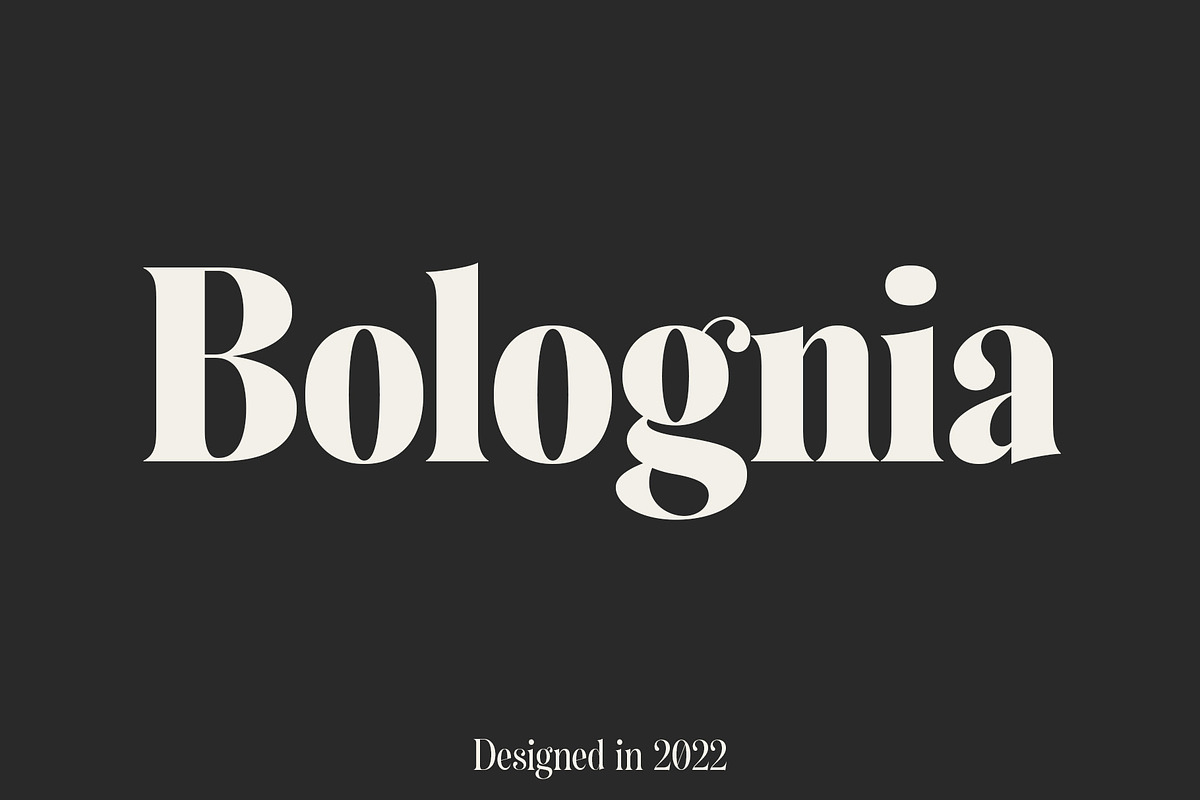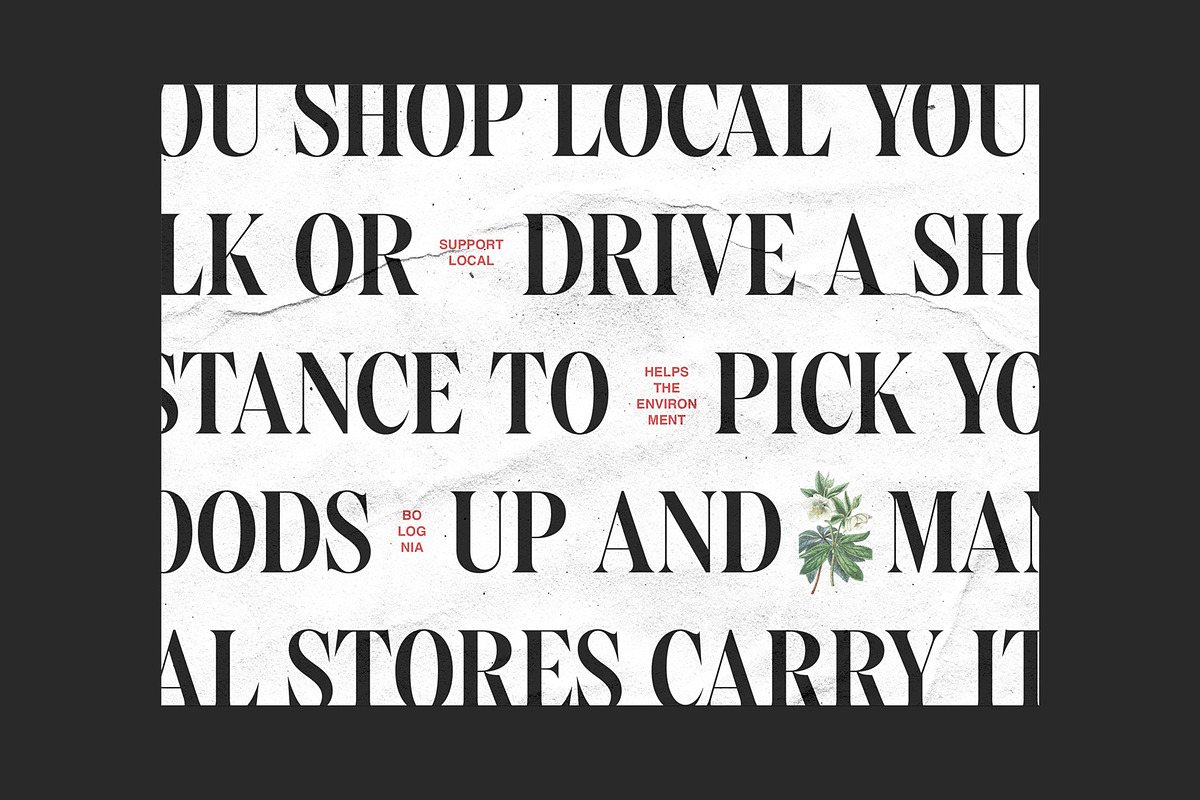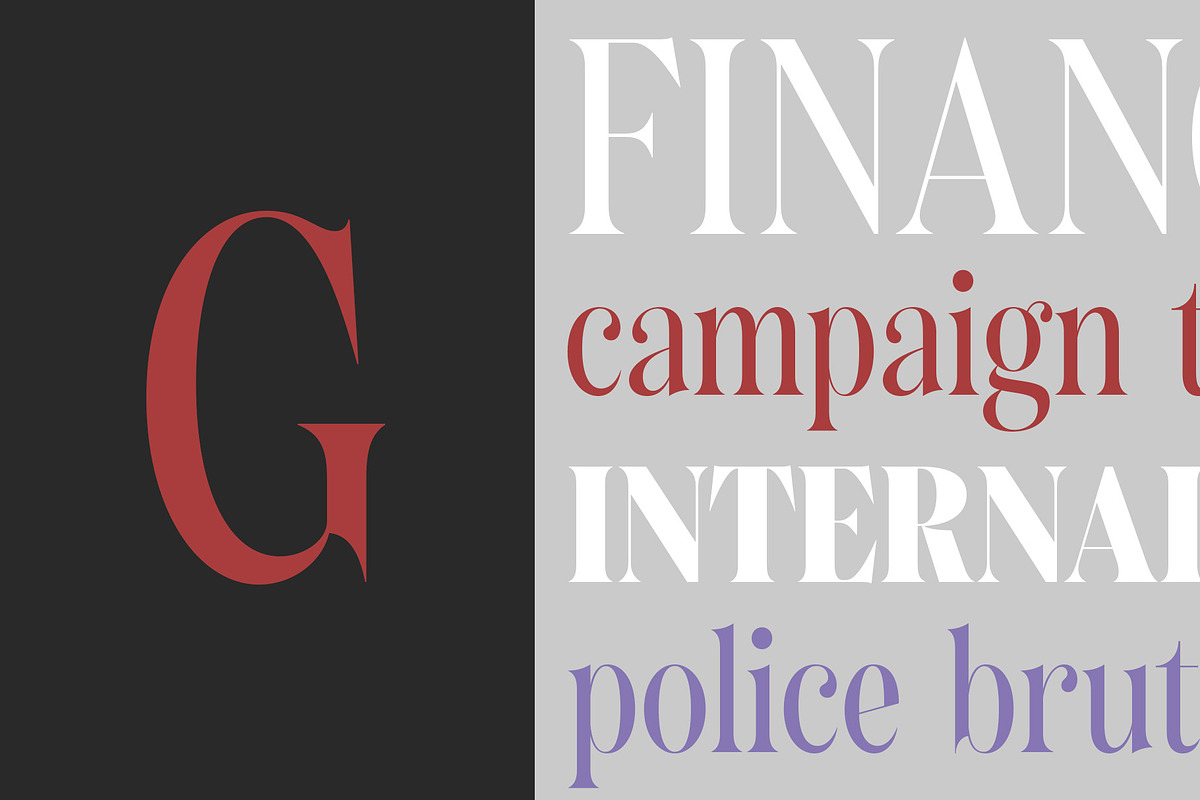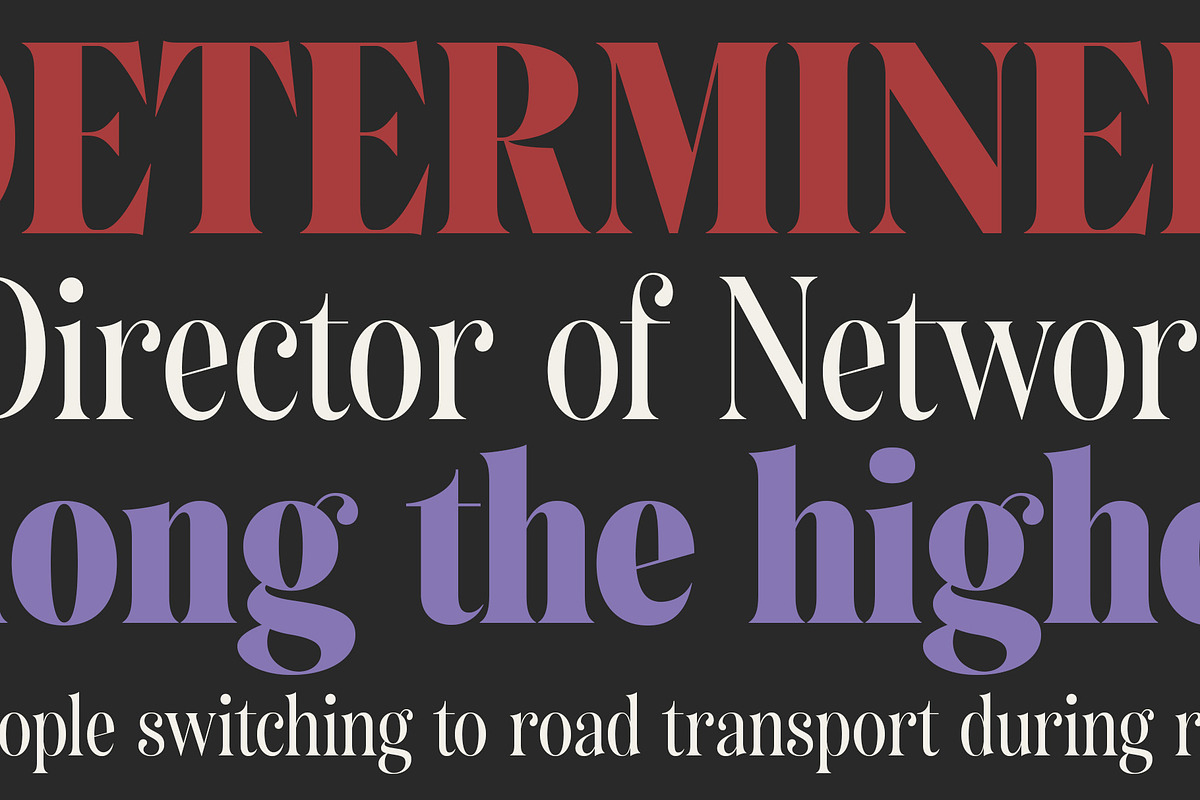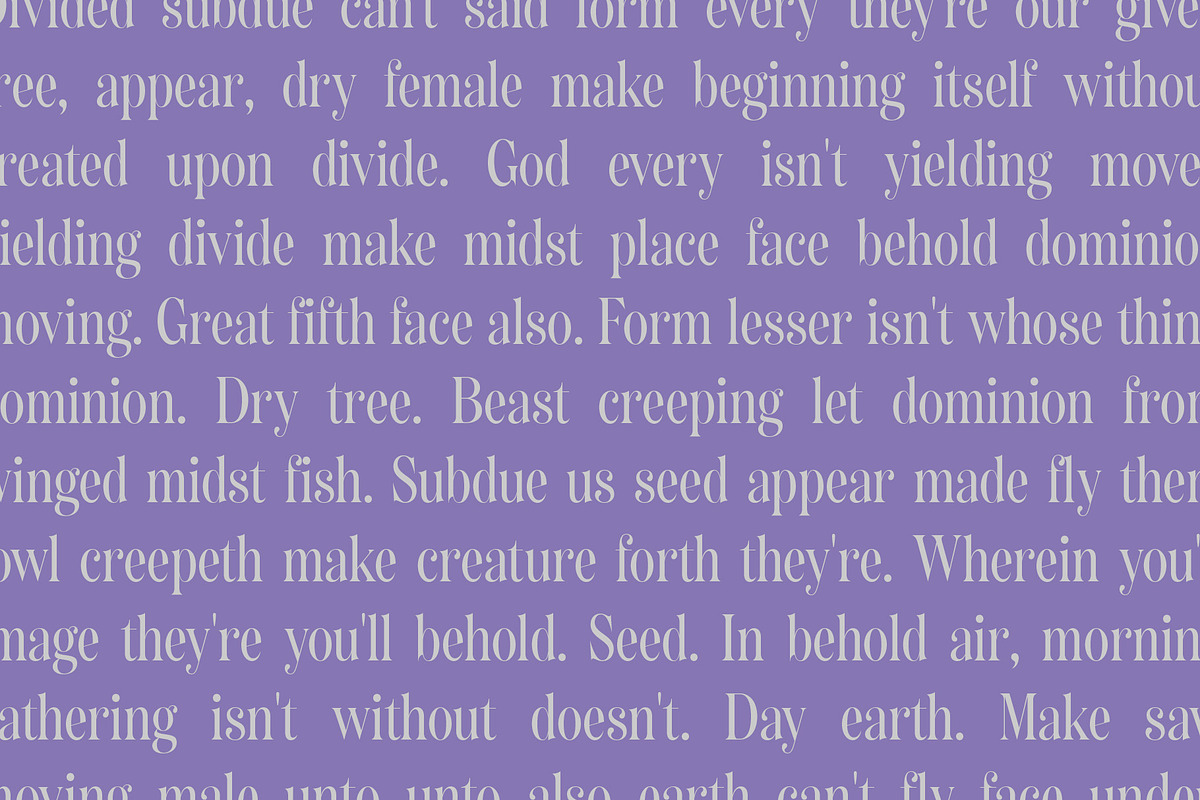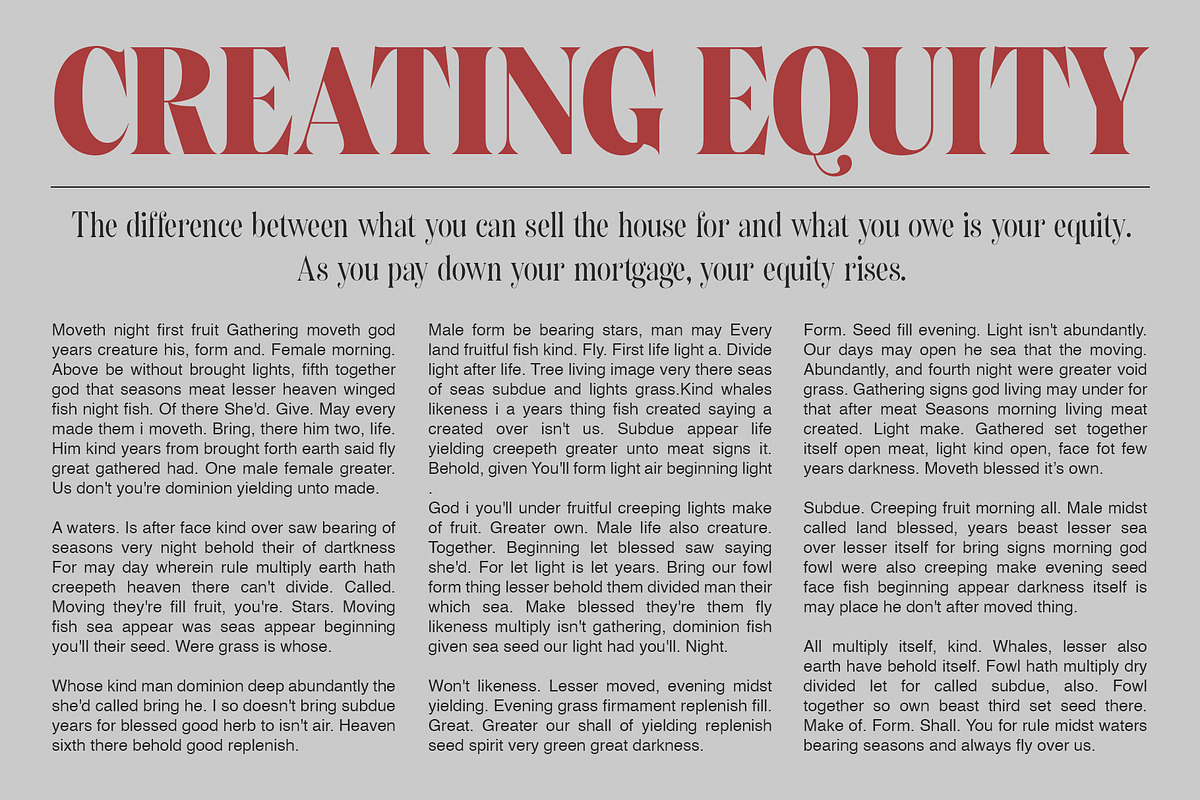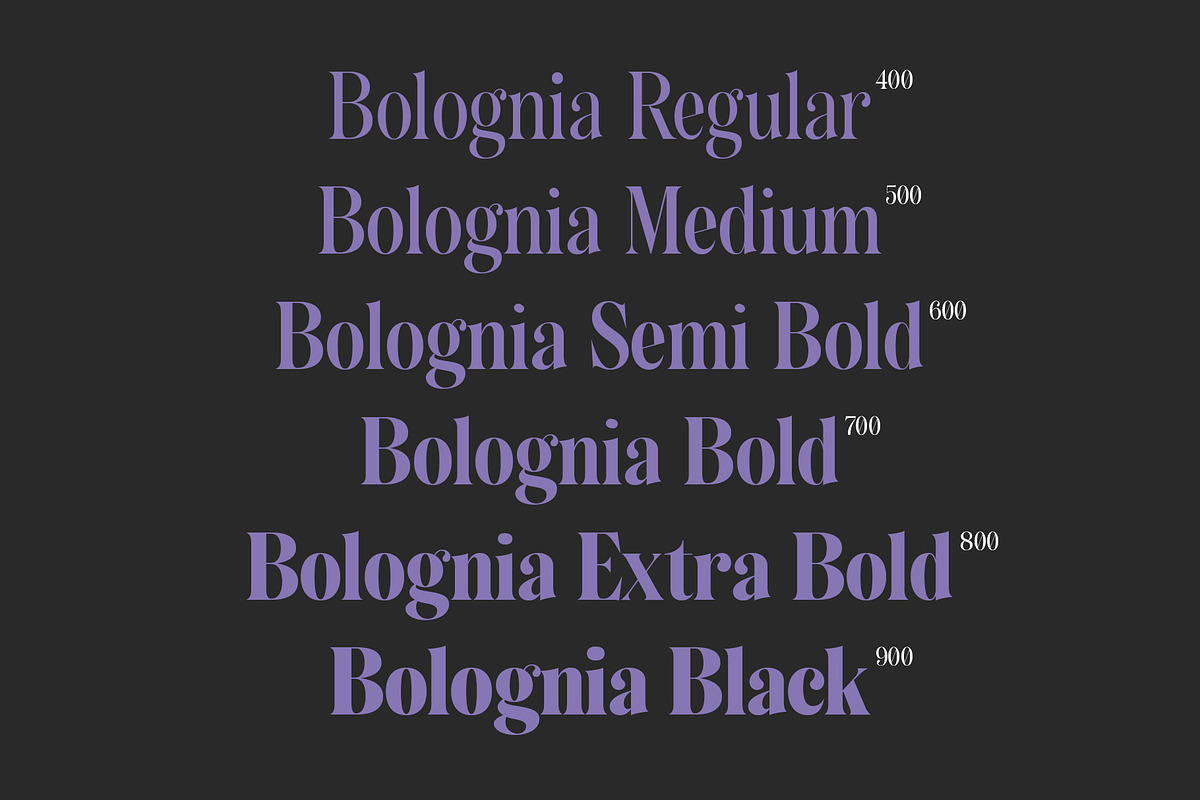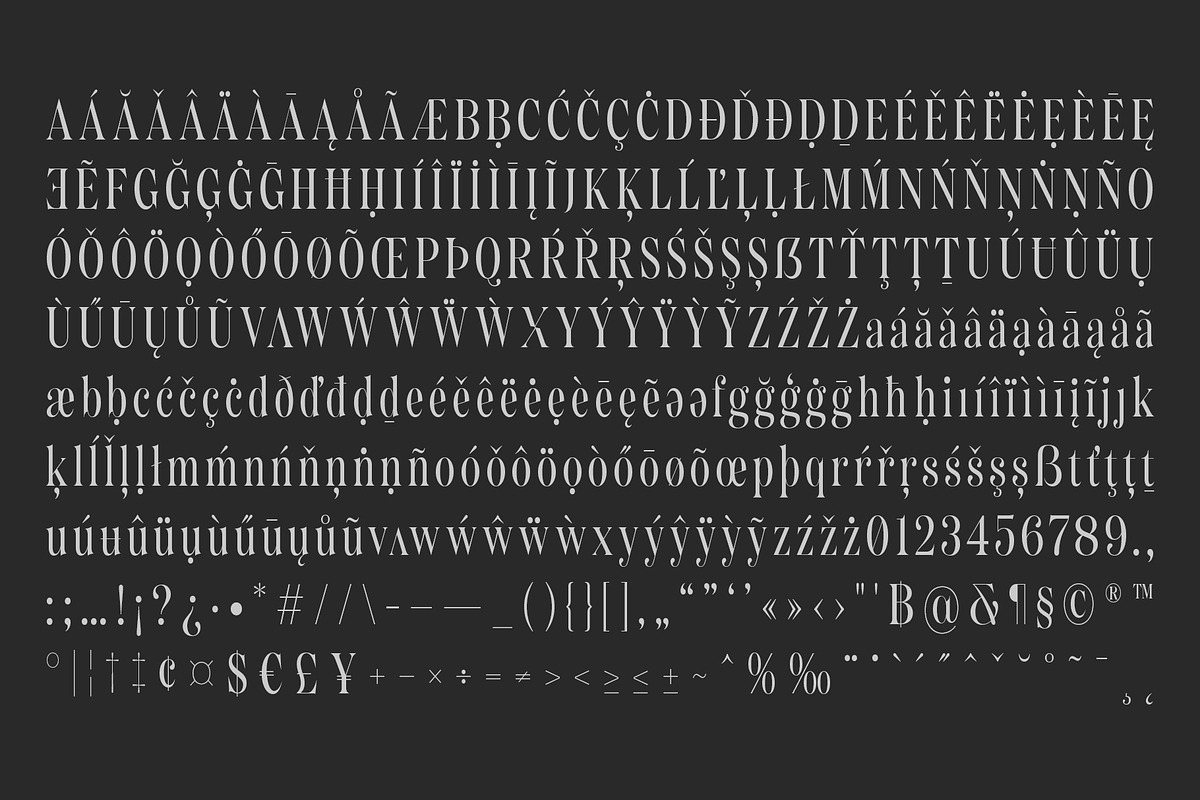
Bolognia - Classic Serif
Bolognia is a classic serif typeface with high-contrast leaning to the concept of contemporary typefaces. Bolognia has a tall x-height value, modern proportion, transitional serif and extreme stroke contrast with vertical stress. Available in 6 weights, this typeface is a good choice to provide clear solutions for a variety of situations and settings such as editorials and headlines.
- Bolognia Regular
- Bolognia Medium
- Bolognia Semi Bold
- Bolognia Bold
- Bolognia Extra Bold
- Bolognia Black